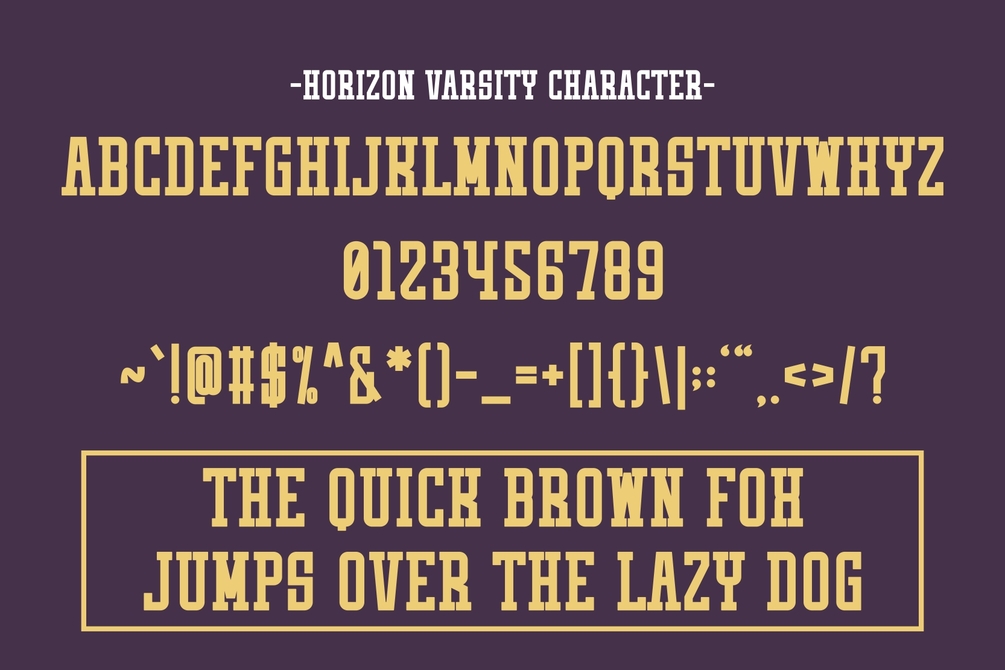
Horizon Varsity - Vintage Slab Serif
Horizon Varsity is a bold and vintage slab serif font that exudes a clean and elegant campus vibe. This font brings a touch of timeless sophistication and academic charm to any creative projects. Perfect for quotes, posters, backgrounds, striking logos, professional branding, stylish t-shirts, mugs, trendy tote bags, pillows, pouches and sporty apparel.